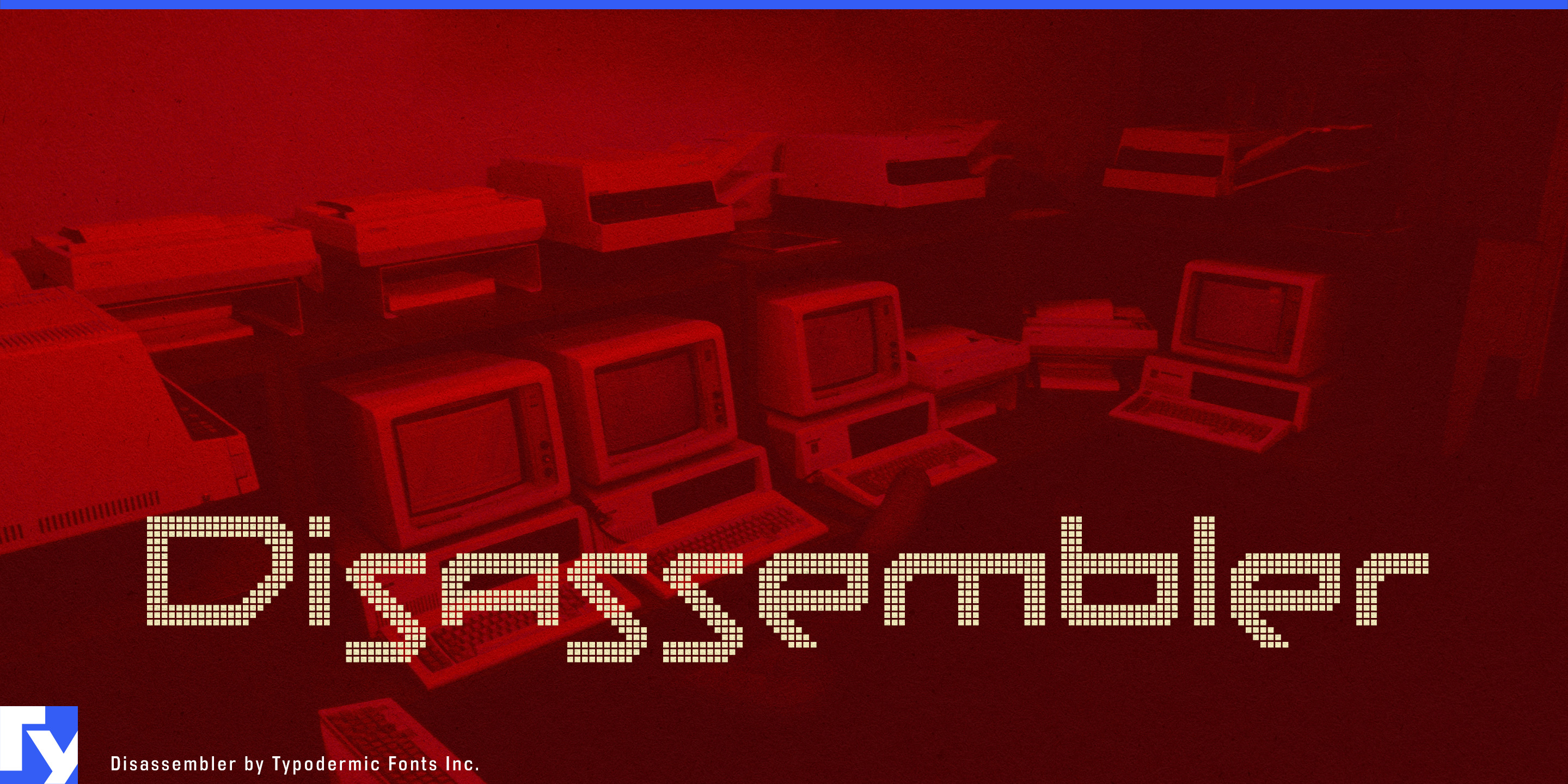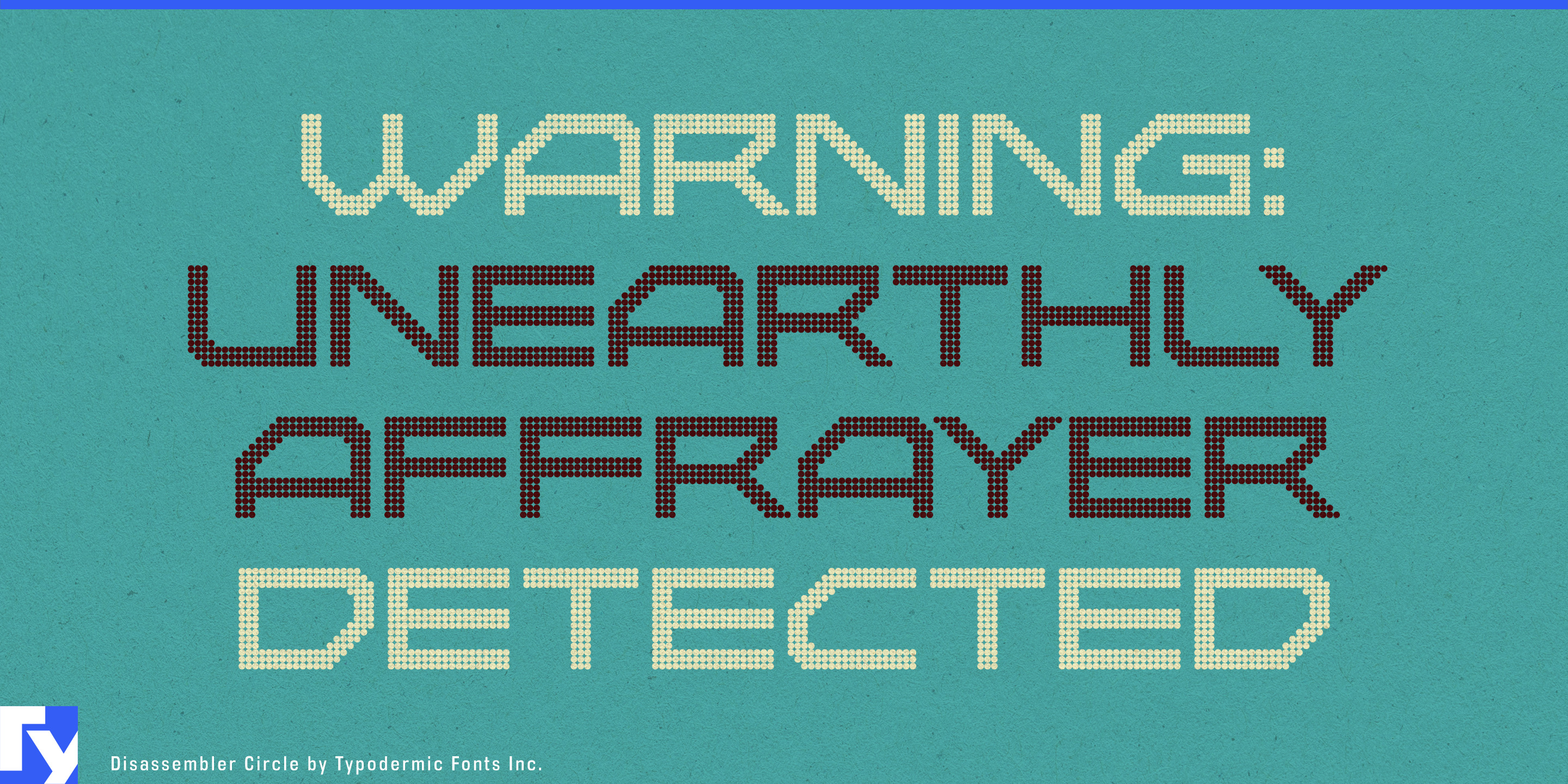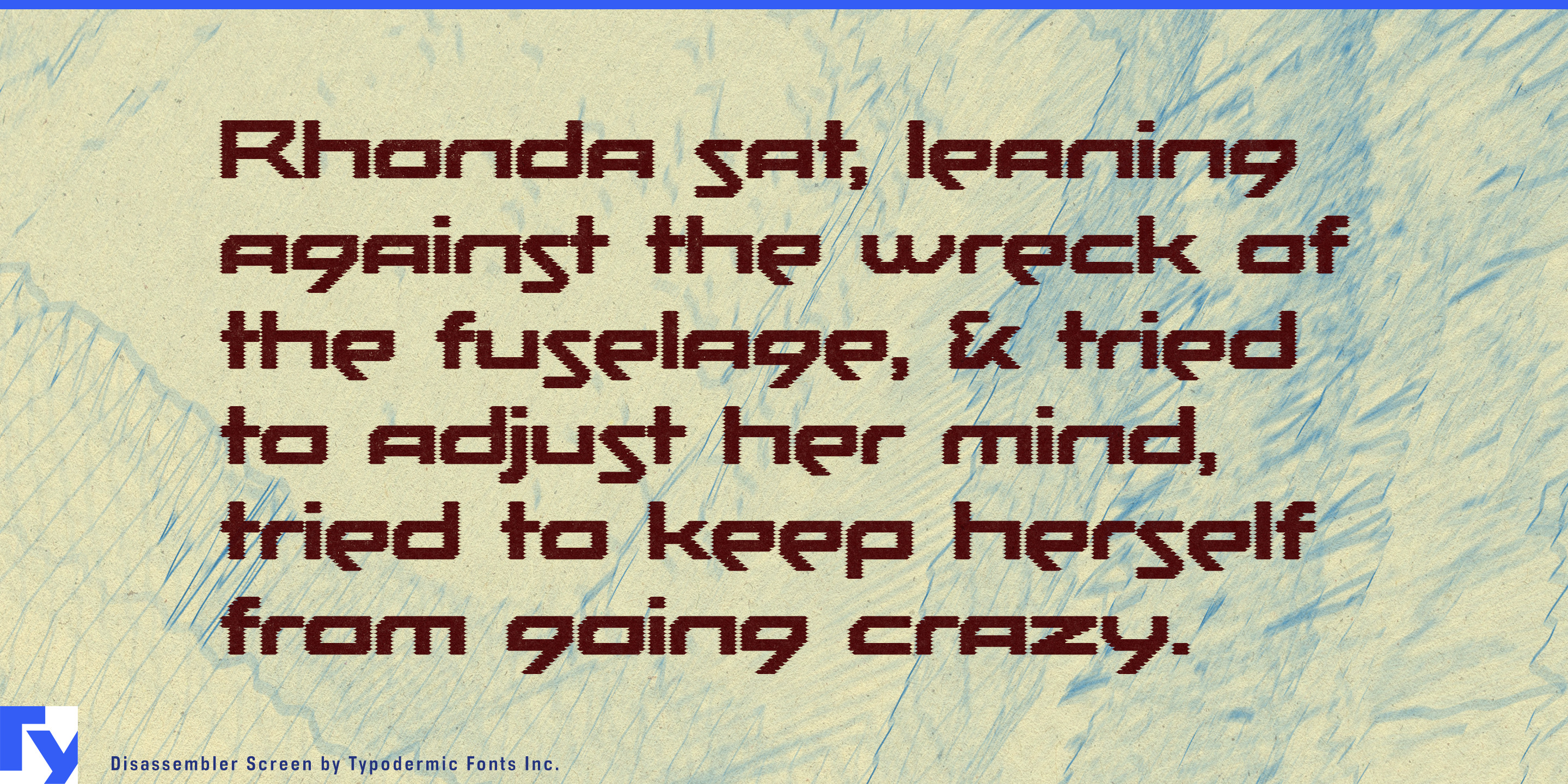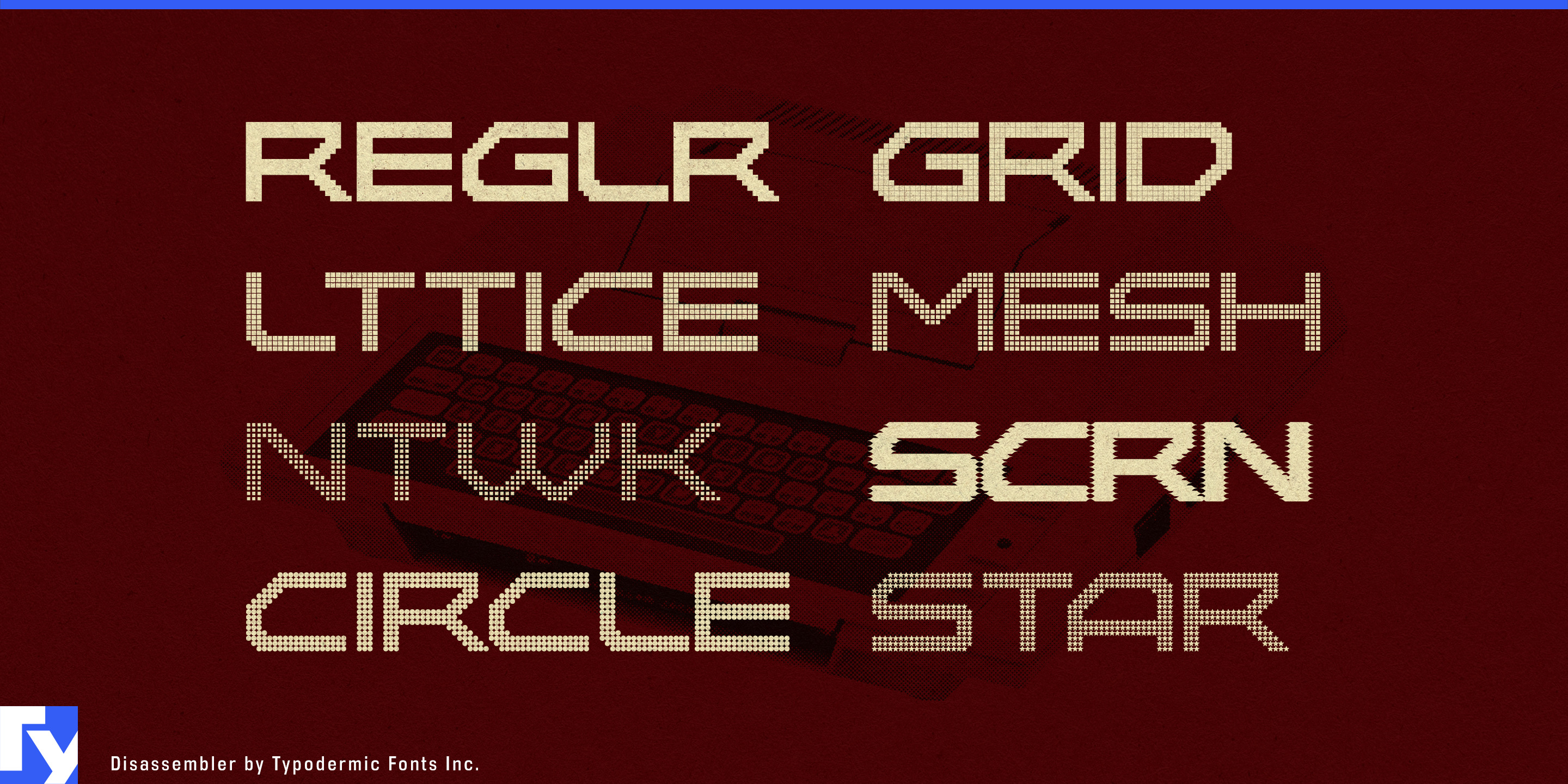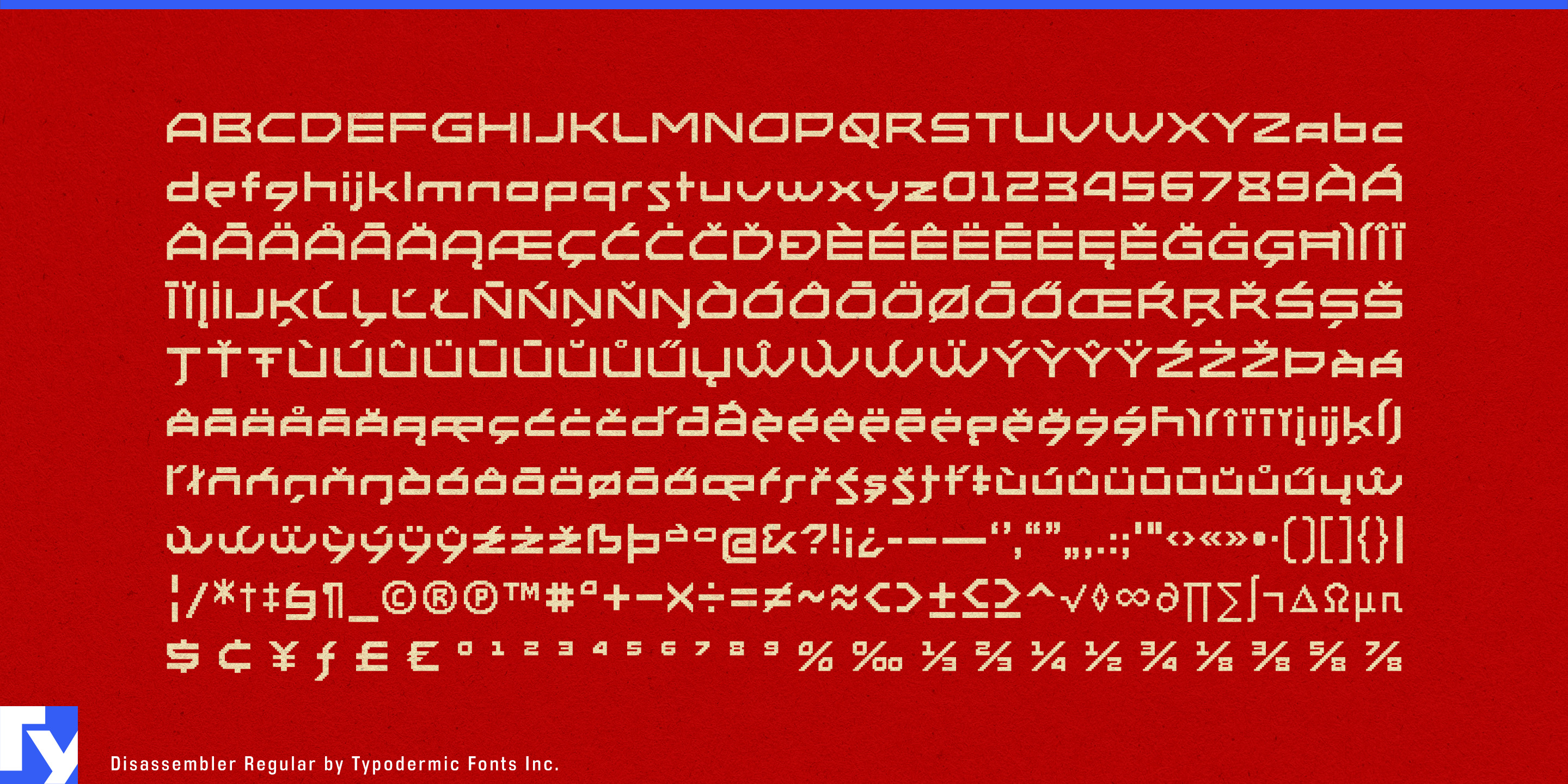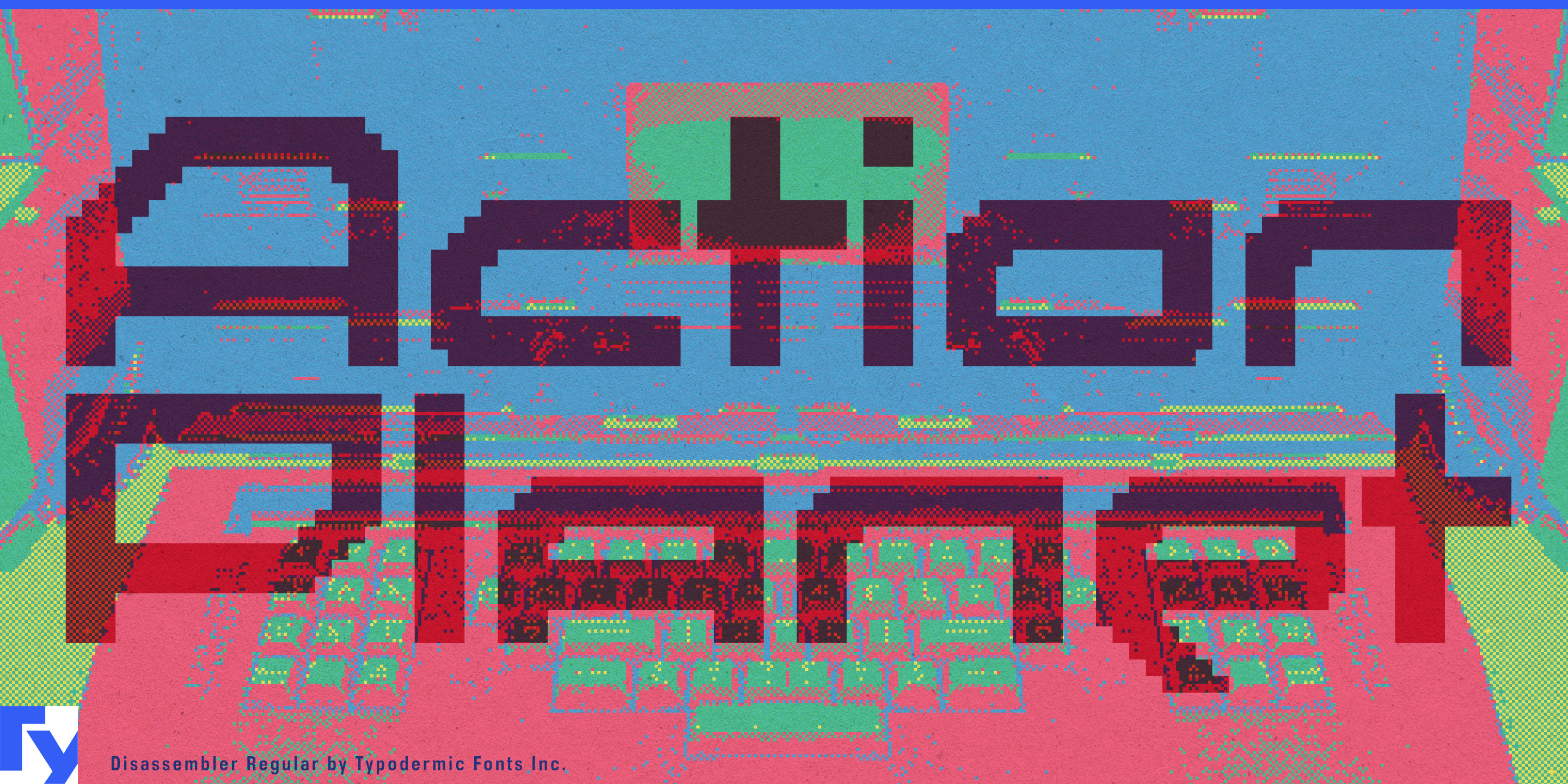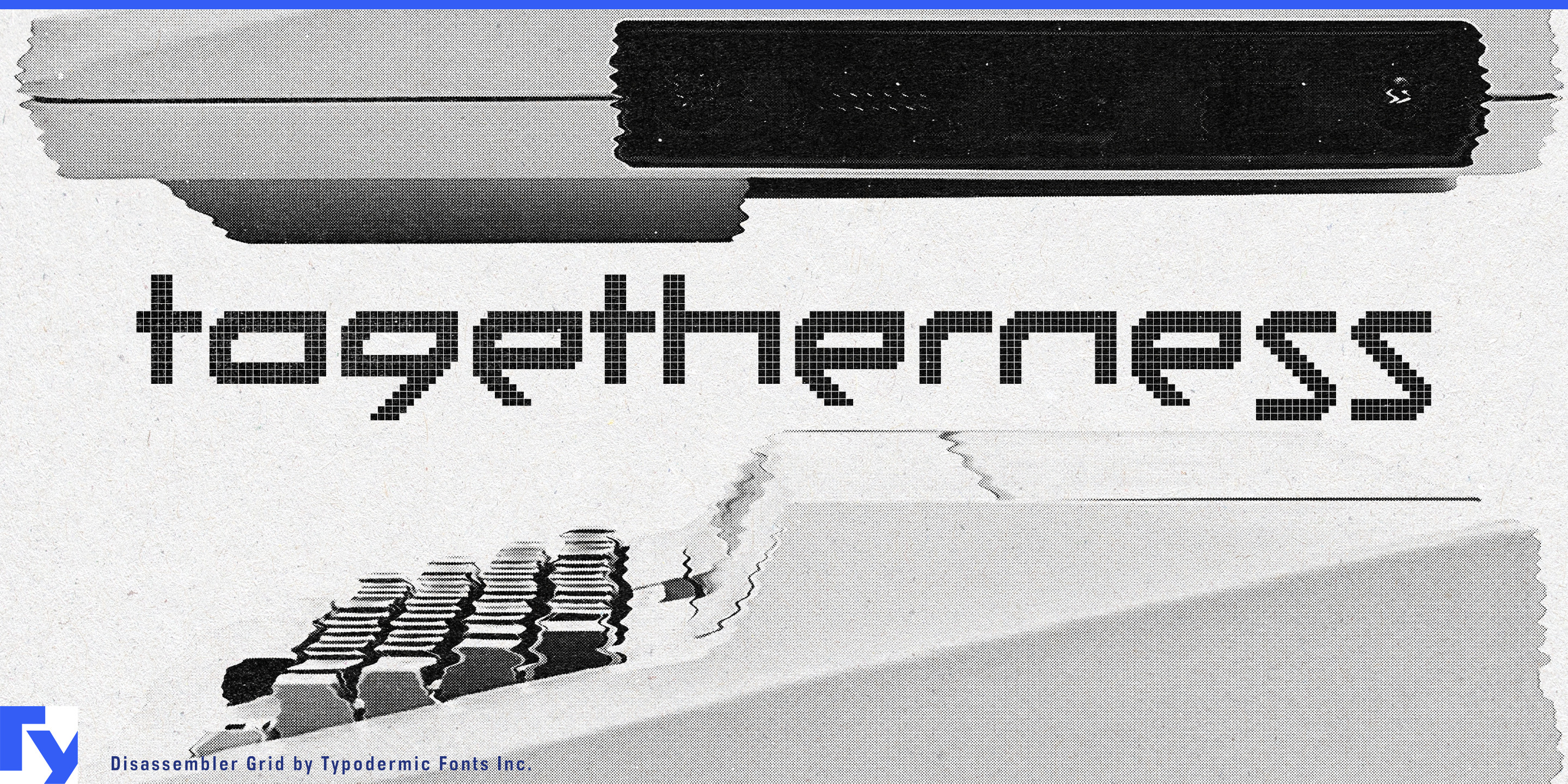
Disassembler
Disassembler is a precision-built homage to the typography of the 8-bit frontier. It doesn’t just mimic the look of early computing—it replicates it with obsessive fidelity. Every letterform is plotted on a true pixel grid, every curve reduced to its bare essentials, and every alignment locked to the chunky spacing of vintage displays. This is the language of Sinclair screens, dusty arcade monitors, and flickering terminals, rendered with modern reliability but zero compromise on authenticity.
Available in eight distinct textures—Regular, Grid, Lattice, Mesh, Network, Screen, Circle, and Star—Disassembler is as adaptable as it is distinctive. Use Regular for unfiltered retro clarity, Mesh for tech branding with a gridded backbone, Screen for sci-fi title cards, Circle for playful arcade nostalgia, or Star for graphics that feel straight out of a space shooter attract mode. Each style offers its own pixel personality, letting you match the visual “grain” to your project’s tone.
Its applications stretch far beyond nostalgia. Disassembler excels in museum exhibits on computing history, chiptune album covers, glitch-art prints, and retro game box art. It’s at home on festival branding that leans into digital dystopia, candy, or soda packaging that plays up vintage tech quirks, and interactive installations on LED walls. Designers have used it for synthwave merch, esports event titles, sci-fi short film credits, tech blog headers, and even experimental fashion wordmarks. Wherever you need text to feel wired into a pixel-era circuit board, Disassembler delivers.
This isn’t a smoothed-over, modernized “retro” font—it’s a working replica of a display technology that shaped how a generation saw the digital world. And with its range of textures, you can go from crisp, screen-perfect fidelity to expressive, glitch-inflected chaos without breaking the spell.
In a design landscape obsessed with vectors and infinite resolution, Disassembler is a reminder of the raw beauty that happens when resolution is finite and every dot counts. If your message needs to buzz with pixel energy, you’ve just found your display typeface.